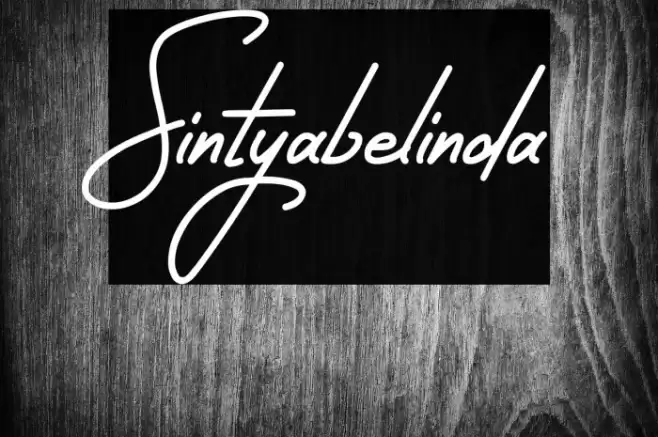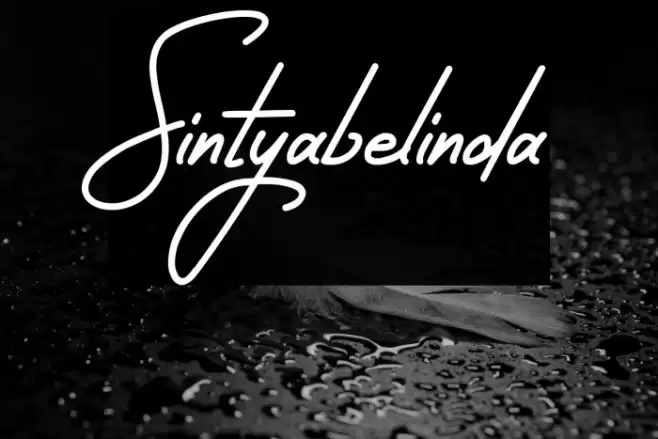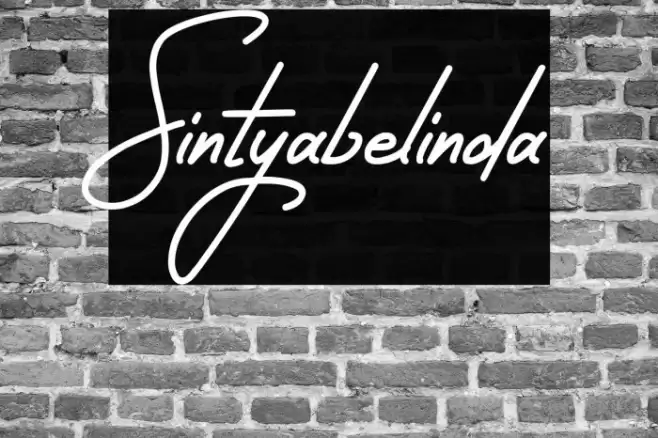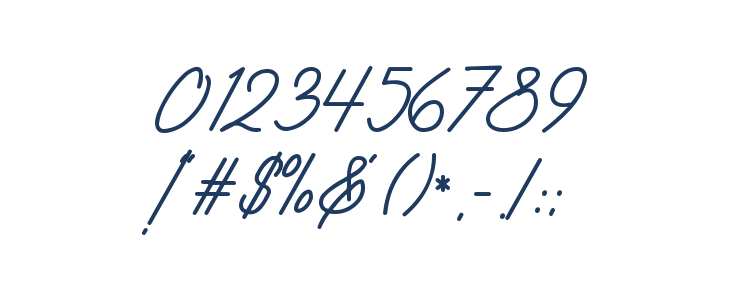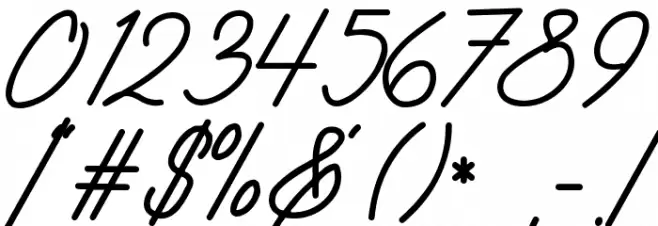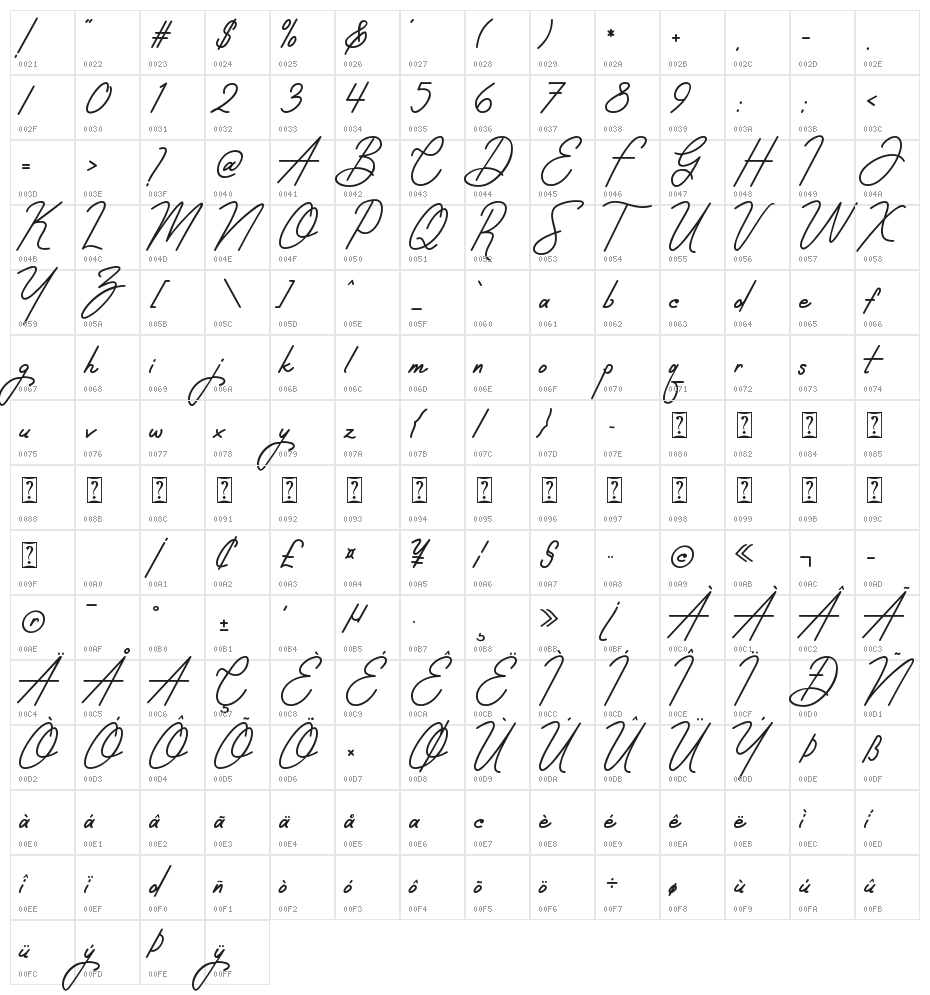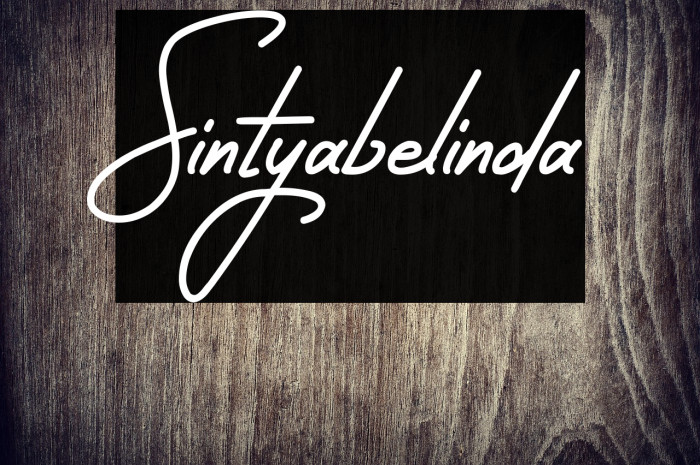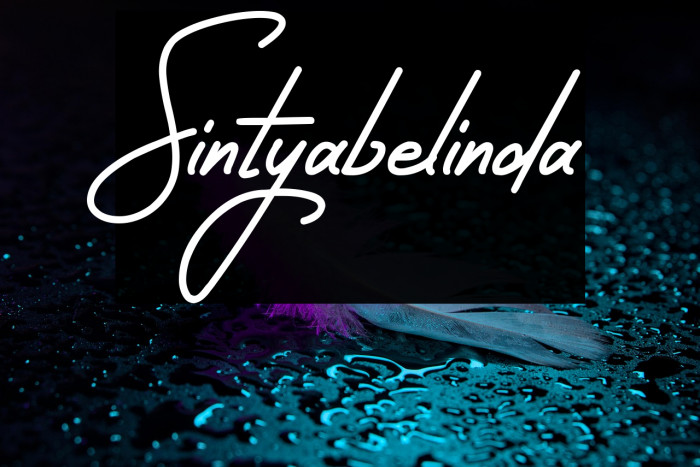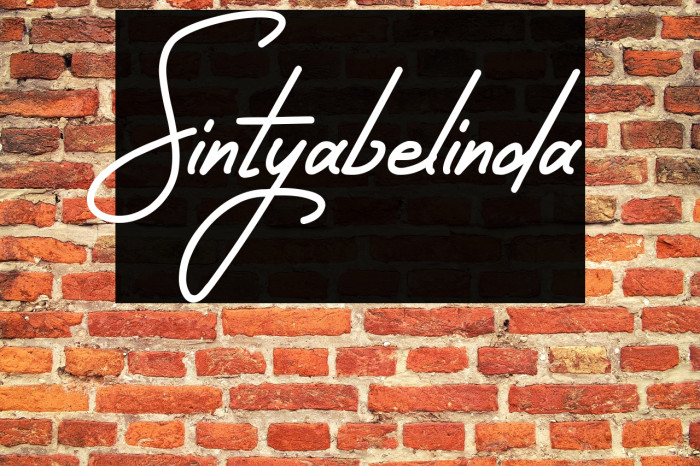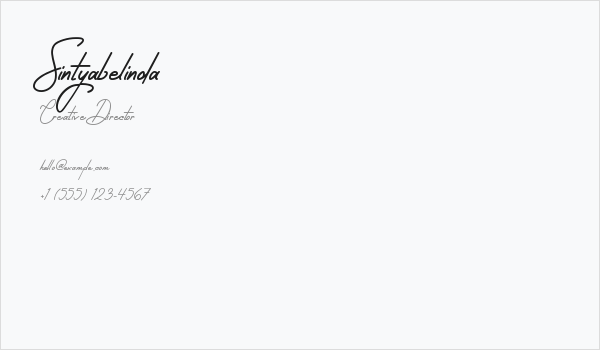
Sintyabelinda Font
Sintyabelinda Description
This font features an elegant, flowing script style that mimics the fluidity of natural handwriting. The uppercase letters are distinctively tall and slender, with graceful loops and curves that add a touch of sophistication. The lowercase letters maintain a consistent style, offering a seamless connection between characters, which enhances readability despite the decorative nature. Numbers and special characters are designed to complement the overall aesthetic, maintaining the same fluid strokes and elegant curves. This font is perfect for projects that require a personal, handwritten touch, such as invitations, greeting cards, or branding materials.
An elegant, flowing script font with a natural handwritten style from Regular fonts.
- Proposed Projects: Ideal for wedding invitations, personal branding, greeting cards, and elegant stationery.
- Overall Style: Elegant, Handwritten
- Use Case: Logos, Invitations, Greeting Cards